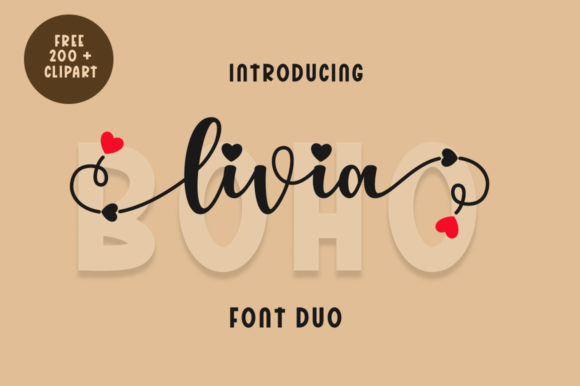
Introducing the captivating Livia Boho Font, an exquisite creation from Fillo Graphic, designed to ignite the flames of love and passion in your digital expressions. This enchanting duo font, consisting of a graceful script and a bold display typeface, is your gateway to crafting heartfelt messages that resonate with genuine emotion.
The elegant script font, with its sweeping curves and delicate flourishes, evokes the timeless beauty of handwritten love letters, inviting your words to dance across the screen with grace and charm. Each letter is meticulously crafted to capture the essence of romance, whispering sweet nothings and painting pictures of adoration with every stroke.
Complementing the script font is the striking display typeface, exuding confidence and boldness. Its strong, assertive lines command attention, making it the perfect choice for highlighting special moments, names, or phrases that deserve to shine. Whether you're creating digital love letters, wedding invitations, anniversary cards, or simply adding a touch of romance to your social media posts, the Livia Boho display font will leave an indelible mark on your audience.
Together, these two fonts create a harmonious symphony of aesthetics, inviting you to weave enchanting tales of love and affection. Whether you use them in unison or separately, the Livia Boho duo font is guaranteed to elevate your designs to new heights of beauty and sophistication.
But what truly sets the Livia Boho Font apart is its versatility. This remarkable duo can effortlessly adapt to a wide range of creative endeavors. From heartfelt love letters and romantic invitations to captivating social media posts and stunning branding materials, the possibilities are endless. Unleash your imagination and allow the Livia Boho Font to transform your words into captivating works of art.
And to ensure effortless creativity, the Livia Boho Font is PUA encoded, granting you seamless access to the entire glyphs and swashes collection. This intuitive feature enables you to effortlessly incorporate intricate embellishments and flourishes into your designs, adding an extra layer of elegance and charm.
So, whether you're a seasoned designer seeking to expand your font library or a budding enthusiast yearning to create captivating digital expressions of love, the Livia Boho Font is your perfect companion. Its enchanting beauty, versatility, and ease of use make it an essential tool for crafting heartfelt messages that ignite passion and leave a lasting impression.